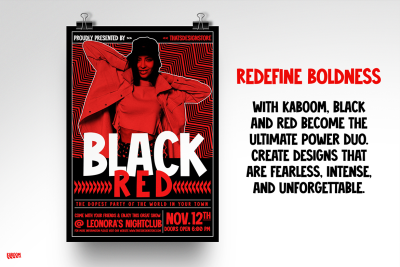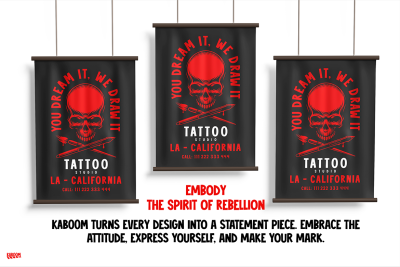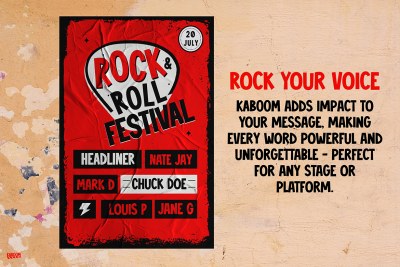
Music Font KABOOM is a bold and energetic typeface designed to capture attention instantly. With thick, chunky letters, it possesses a rebellious vibe, making it perfect for strong visual statements. Moreover, KABOOM reflects the dynamic energy of music scenes like rock, punk, and alternative. Its sharp edges and vibrant shapes not only exude creativity and intensity but also ensure that your text stands out in any context.
Additionally, KABOOMโs explosive personality is ideal for high-impact projects. Whether you’re creating posters, album covers, or promotional materials, this font consistently delivers. Its bold letterforms convey movement and excitement, which makes it a great choice for music-related designs. Furthermore, KABOOM blends modern aesthetics with a handcrafted feel, adding flair and authenticity to your visuals. Even at smaller sizes, it maintains boldness and clarity, making it versatile for various applications.
Music Font KABOOM Best Suited For
In particular, Music Font KABOOM is perfect for musicians, bands, and promoters who want a font that reflects their bold spirit. It shines especially well in rock, punk, metal, and alternative genres, where a striking visual identity is crucial. Therefore, whether youโre designing tour posters, album artwork, or band merchandise, KABOOM provides the right mix of energy and style.
Moreover, concert organizers, music festival promoters, and event venues will find KABOOMโs bold design effective for promotional materials. Its dramatic letterforms are ideal for flyers, banners, and digital promotions, ensuring that your event stands out and attracts audiences.
Additionally, alternative fashion brands, streetwear designers, and youth culture-focused companies can benefit from KABOOMโs aesthetic. Whether for logos, product packaging, or apparel, this font brings a fresh, edgy look that resonates with audiences seeking individuality and creative expression.
In summary, Music Font KABOOM is a versatile typeface that is perfect for music, fashion, and creative industries. Its explosive design ensures that your project leaves a lasting impression. Thus, in both print and digital media, KABOOM offers a bold, powerful presence that truly stands out.